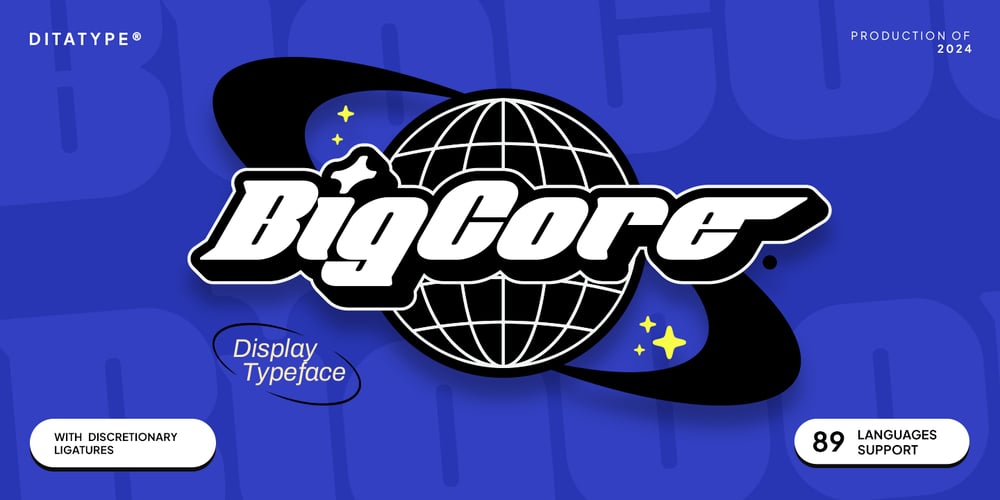
Big Core Font Family was designed by Donis Miftahudin and published by Ditatype. Big Core contains 1 styles and family package options. Big Core is a powerful display font designed to make a bold statement with its uppercase letters and striking weight. Each uppercase letter is meticulously crafted to command attention and convey a sense of authority. The bold weight of the font ensures maximum visibility, making it ideal for capturing the viewer’s attention from a distance.Despite its boldness, Big Core maintains a sense of elegance and sophistication with its clean lines and low contrast. This allows the font to retain clarity and readability, even at larger sizes, ensuring that your message is delivered with impact and professionalism. With Big Core, you have a display font that embodies strength, confidence, and authority. In addition, enjoy the features here.Features: Ligatures Stylistic Sets Multilingual Supports PUA Encoded Numerals and Punctuations Big Core fits in headlines, logos, posters, flyers, branding materials, greeting cards, print media, editorial layouts, and many more designs. Find out more ways to use this font by taking a look at the font preview.Thanks for purchasing our fonts. Hopefully, you have a great time using our font. Feel free to contact us anytime for further information or when you have trouble with the font. Thanks a lot and happy designing.